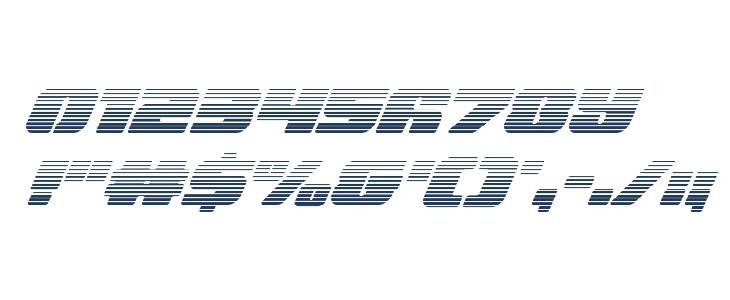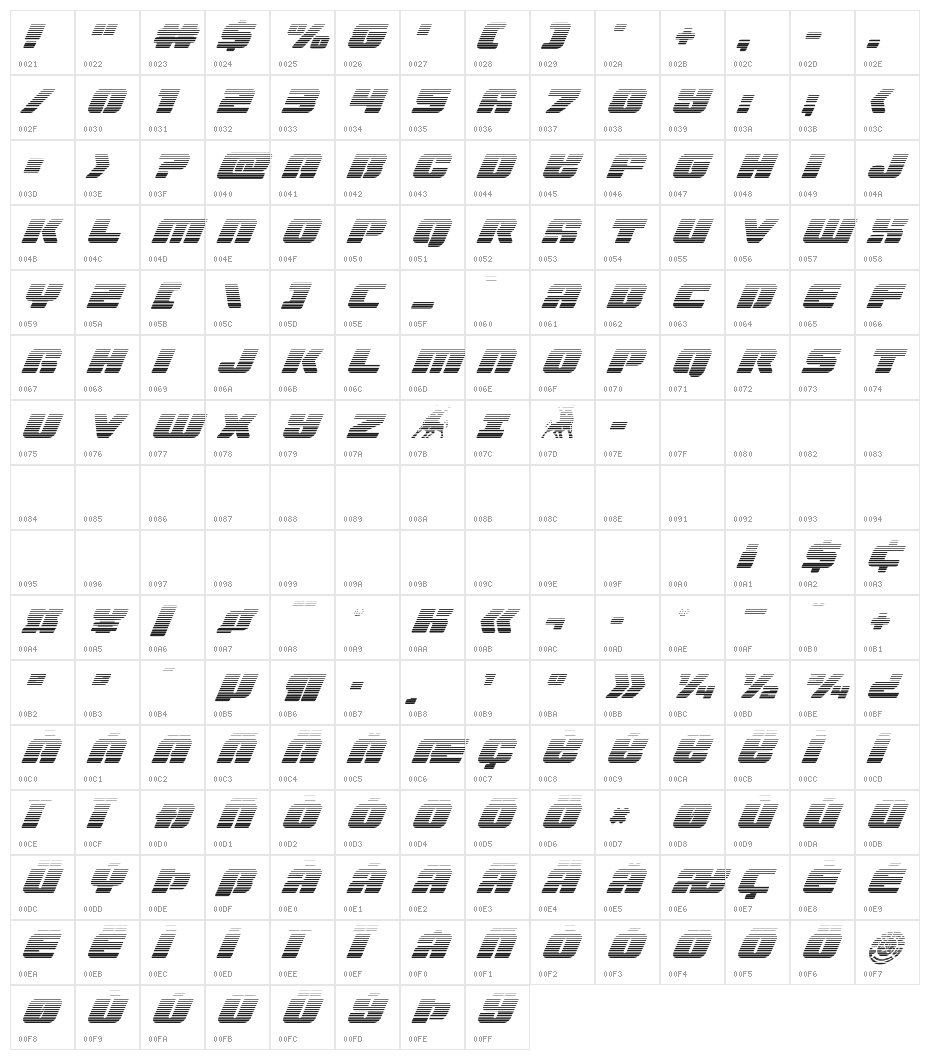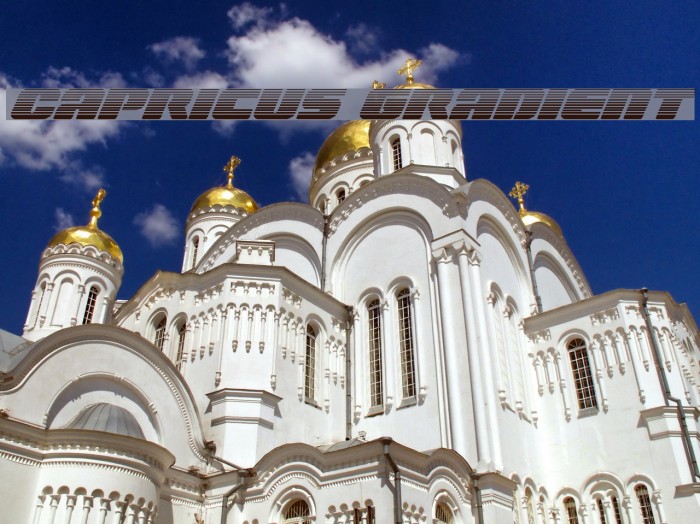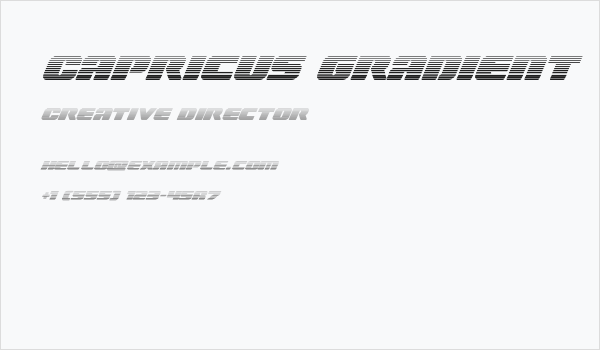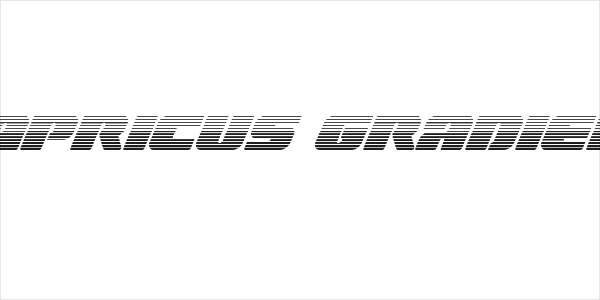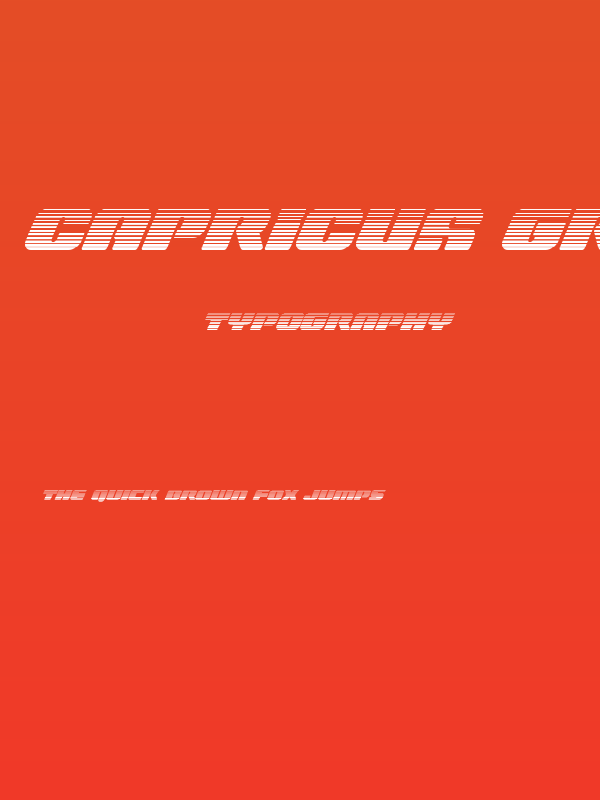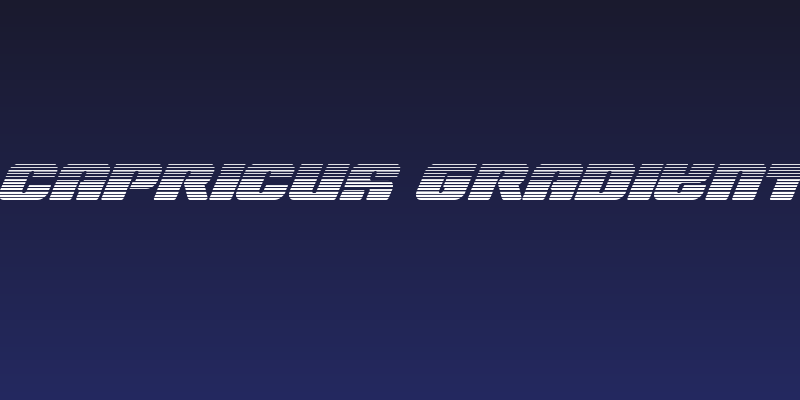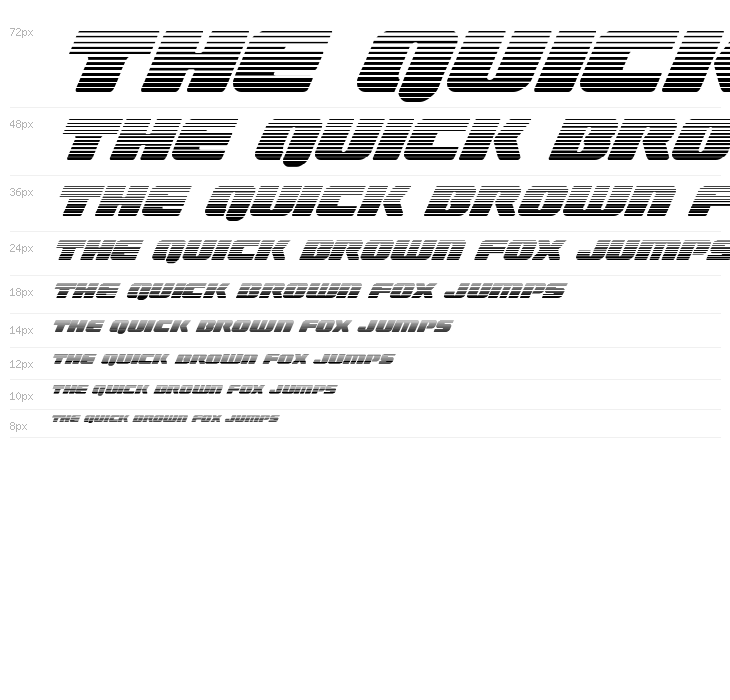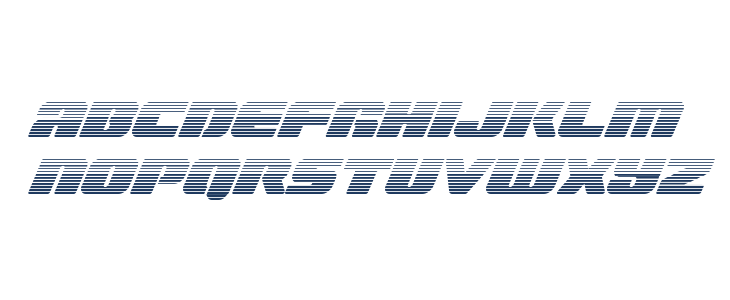
Capricus Gradient Font
Capricus Gradient Description
This font features a unique, futuristic design characterized by horizontal lines that create a gradient effect across each character. The letters are bold and wide, with a distinct slanted orientation that adds a sense of motion and dynamism. The uppercase and lowercase letters maintain a consistent style, enhancing the overall cohesiveness of the font. The numbers and special characters are designed with the same horizontal line pattern, ensuring uniformity across all elements. This font's modern and edgy appearance makes it suitable for projects that require a strong visual impact.
| Proposed Projects | Ideal for sci-fi themed designs, technology branding, video game titles, and modern advertising campaigns. |